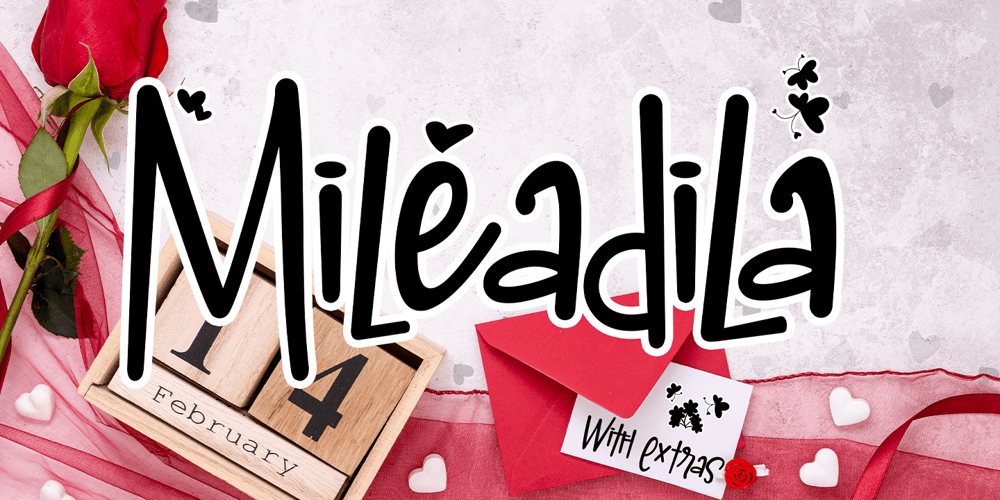
Mileadila Font Family was designed by Thomas Aradea and published by Letterara. Mileadila contains 3 styles and family package options. Mileadila is a sweet and simple display font that is perfect for adding a romantic charm to your next Valentine’s day project and that will turn any design project into a true standout. We also made many stunning clip-art which is packed in extras, so you can create many designs for your projects. Get inspired by Mileadila’s unique look for your valentine.